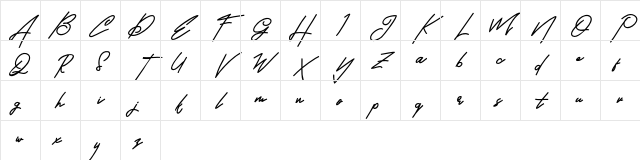
BrandHole FREE is a composed and adaptable typeface that performs quietly and consistently across a wide range of design contexts.
Pro Tip: Use BrandHole FREE in both headline and body roles to test its range before committing to a single application.